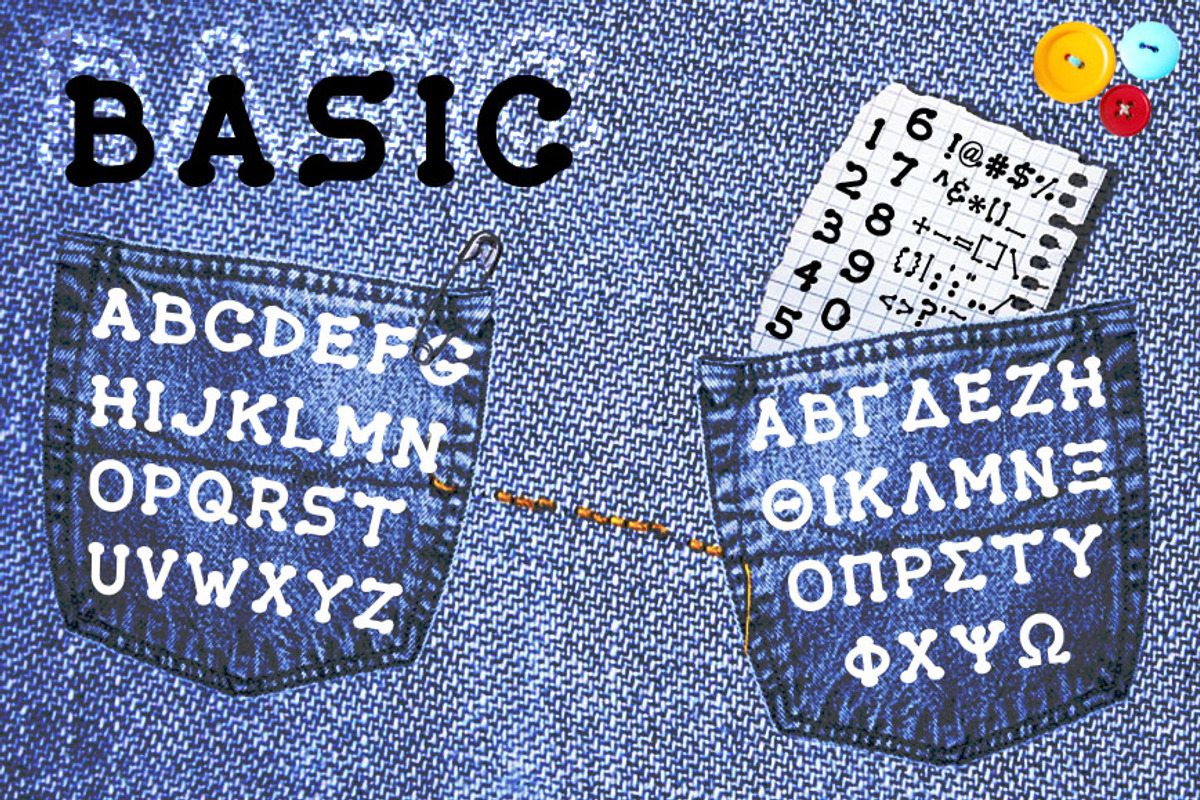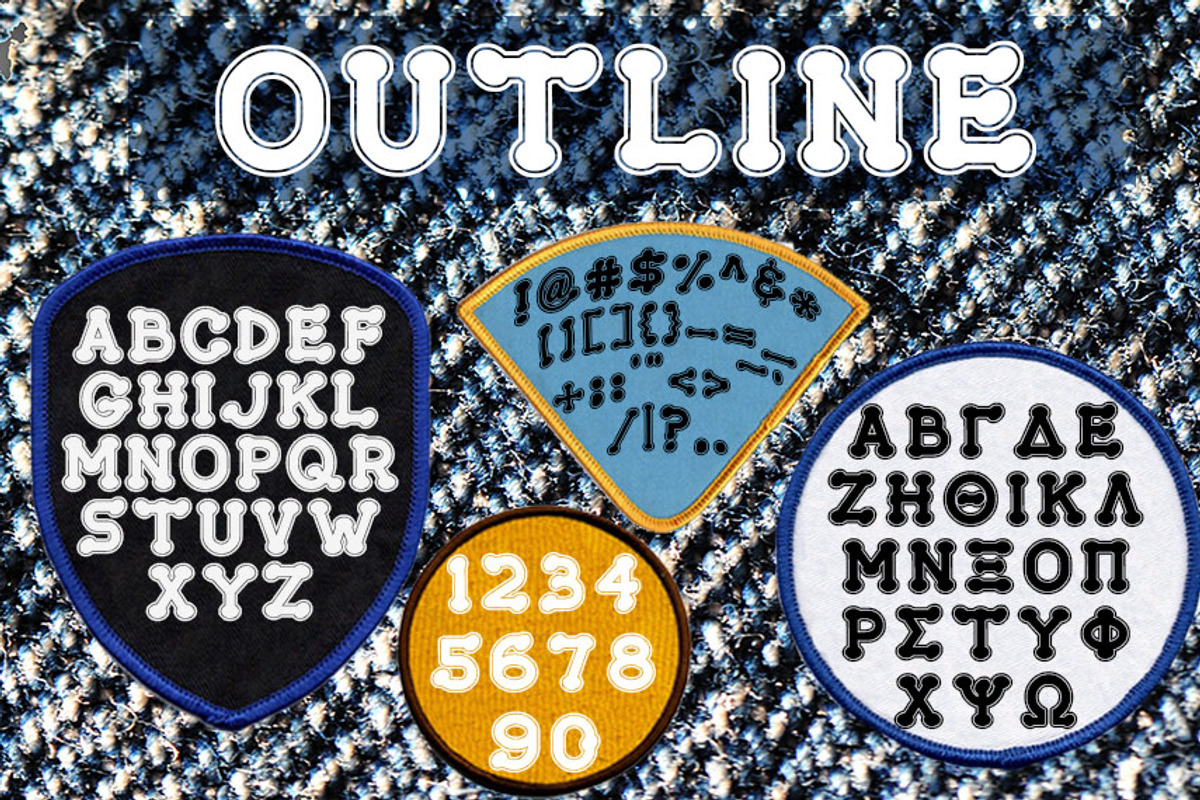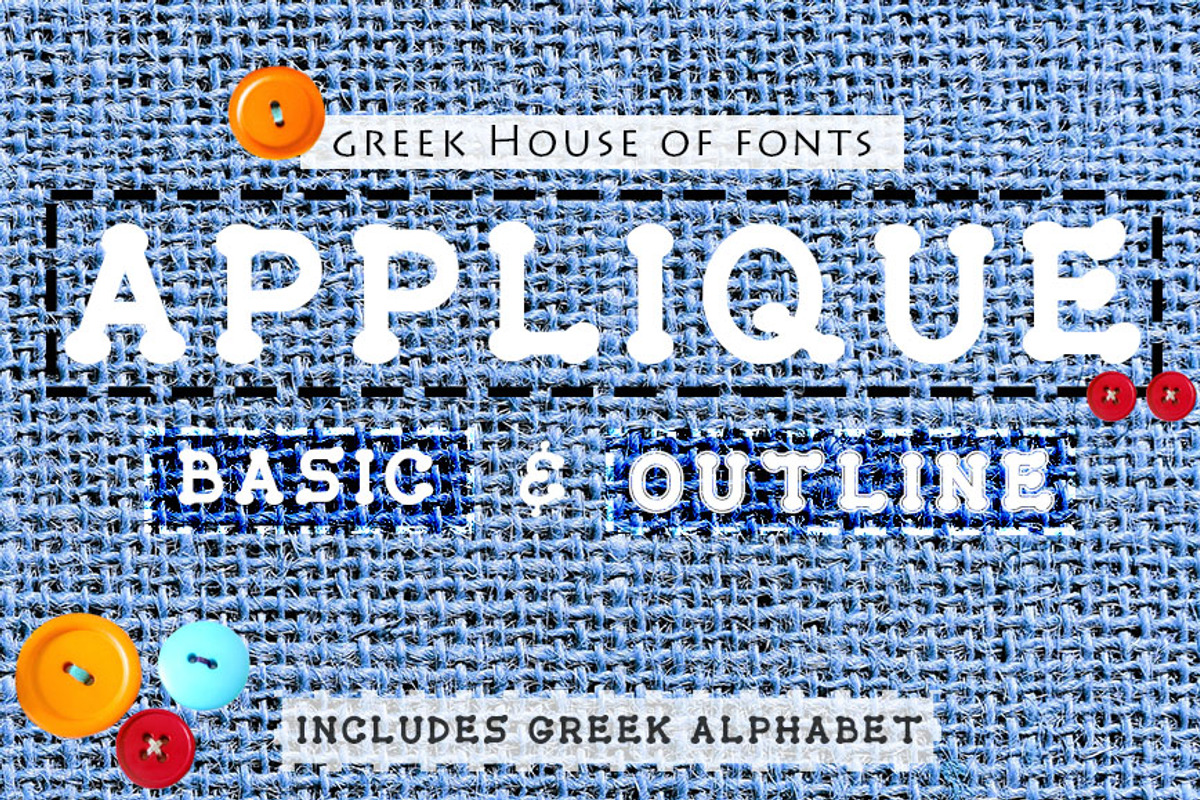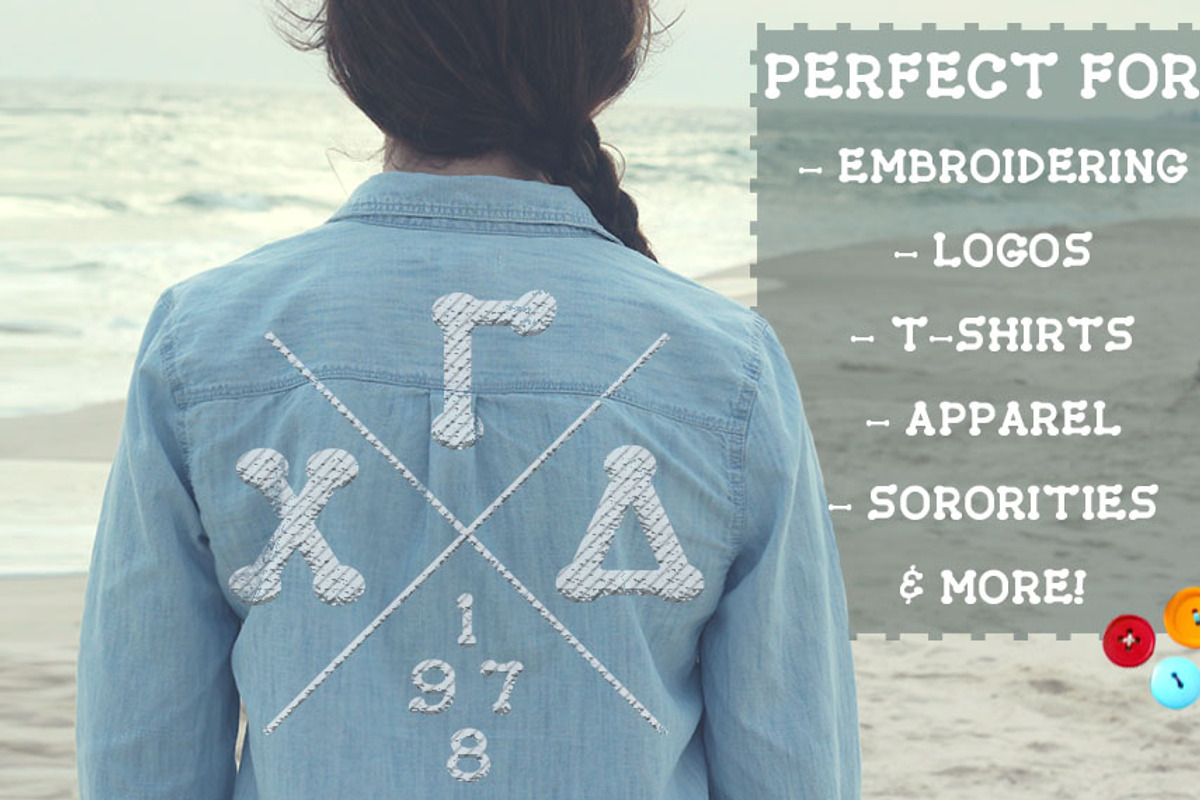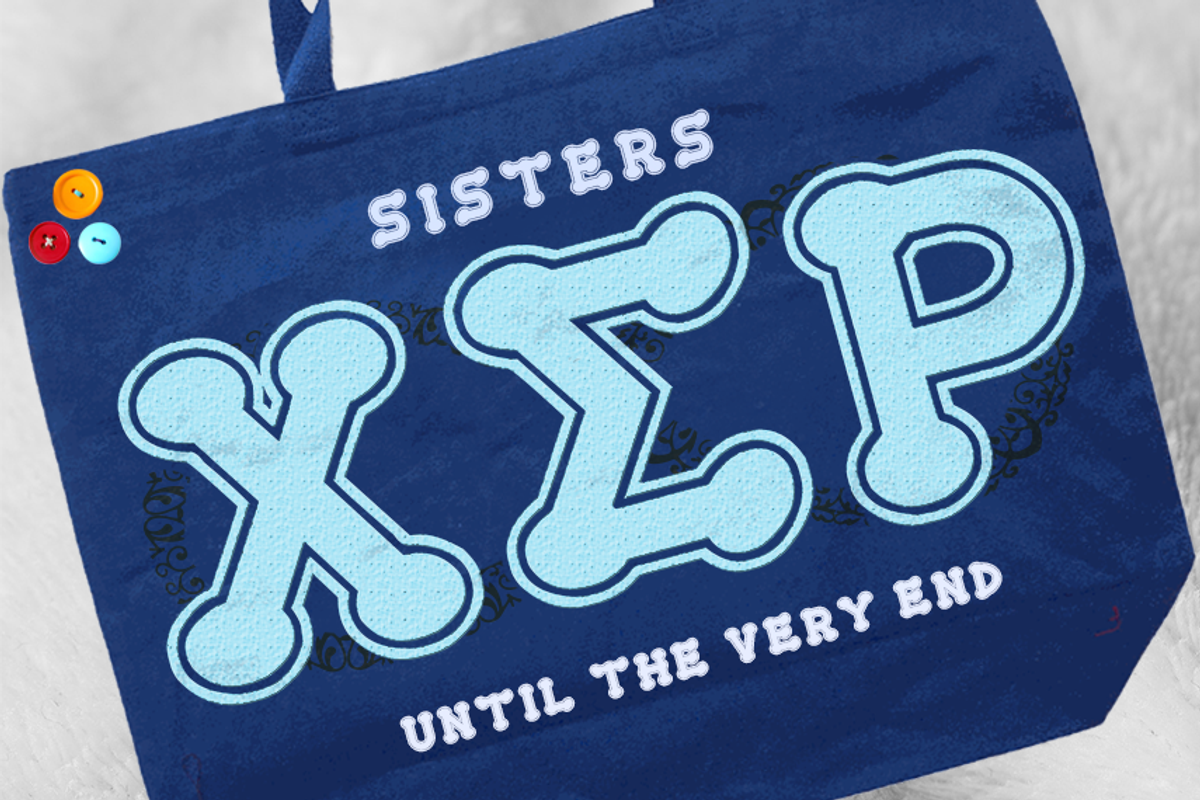
Applique Greek Font Set
This applique Greek font set includes both solid and outline applique style lettering in .TTF format. These two fonts are perfect for designing T-shirts and other collegiate graphic design needs. This font is generally made for sororities.
Type lowercase for Latin/English style lettering and type UPPERCASE for Greek lettering.
These fonts are strictly for Greek collegiate, fraternity, and sorority use and do not contain lowercase Greek letters.